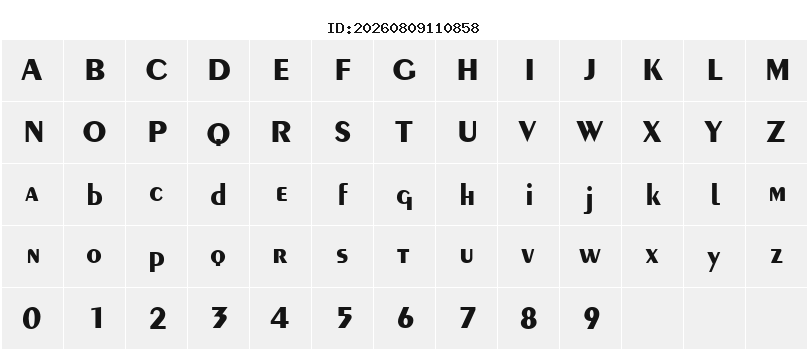
• Font Name: Penguin
About Penguin.ttf
Penguin.ttf is a modern, elegant sans-serif font designed for ultimate readability and visual harmony. Perfect for branding, headlines, web design, and print materials.